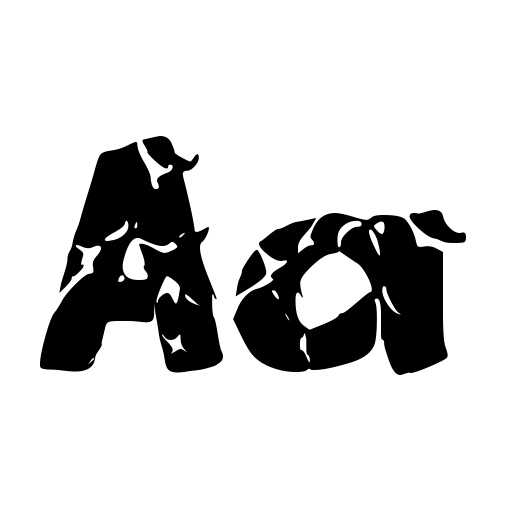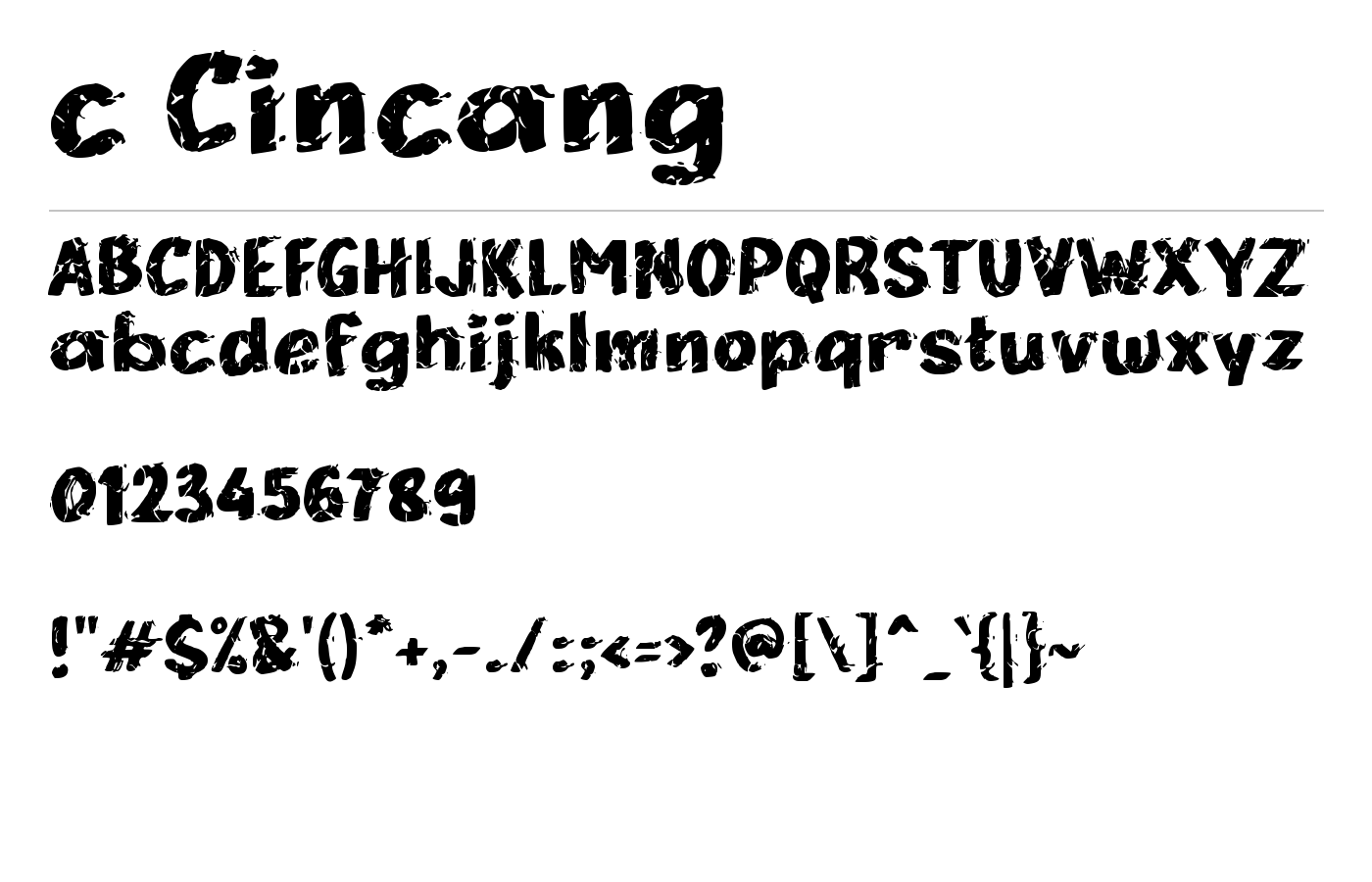
Cincang is a bold, distressed sans serif font with a rough, textured appearance that adds a rugged, handcrafted feel to any design. Its irregular edges and thick strokes make it eye-catching and perfect for bold headlines, posters, or branding that seeks a raw, authentic vibe. This font works well in creative, edgy contexts where a strong and unconventional style is desired.
c Cincang Font